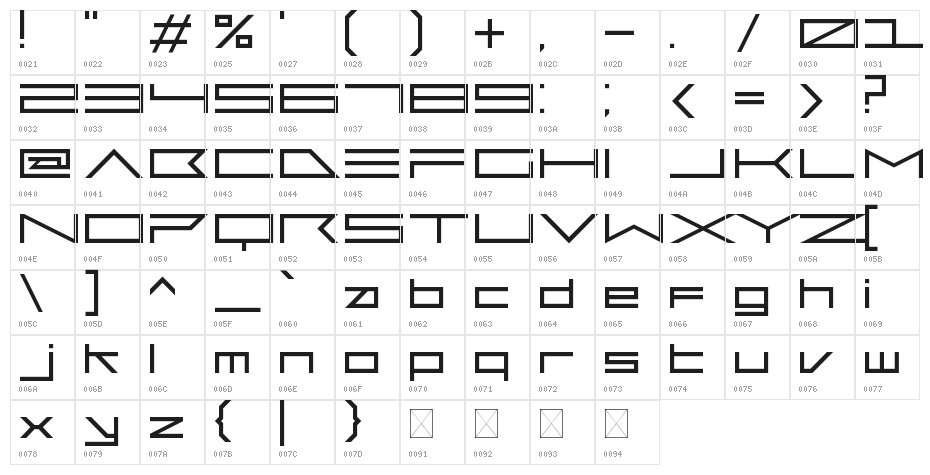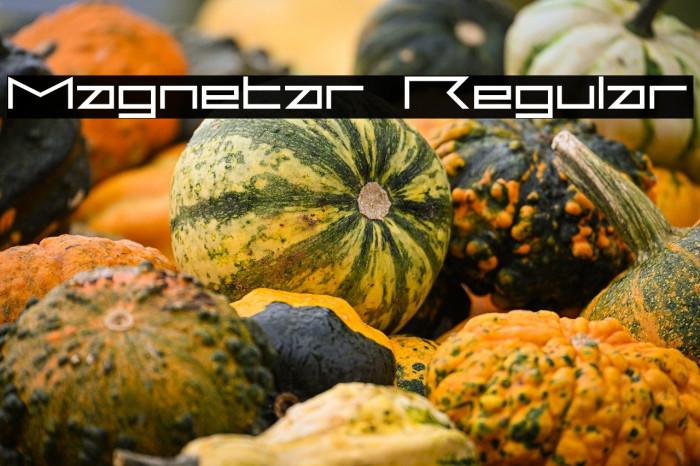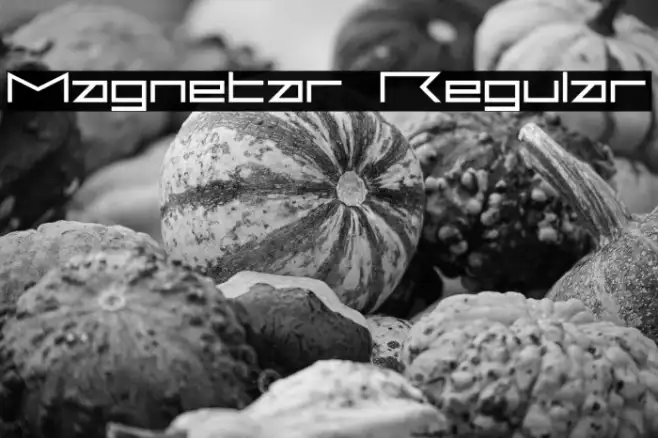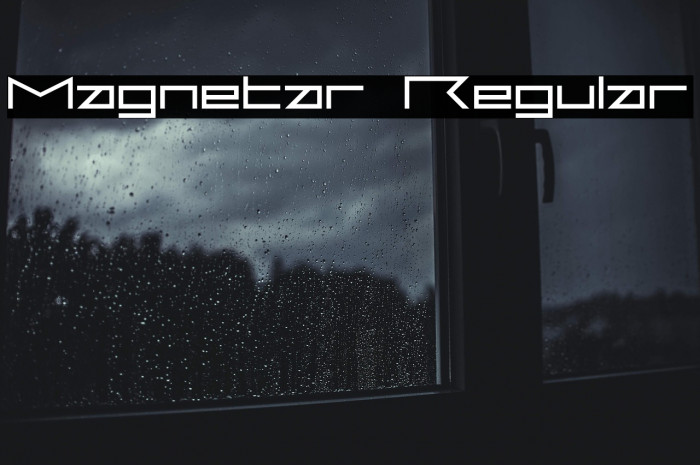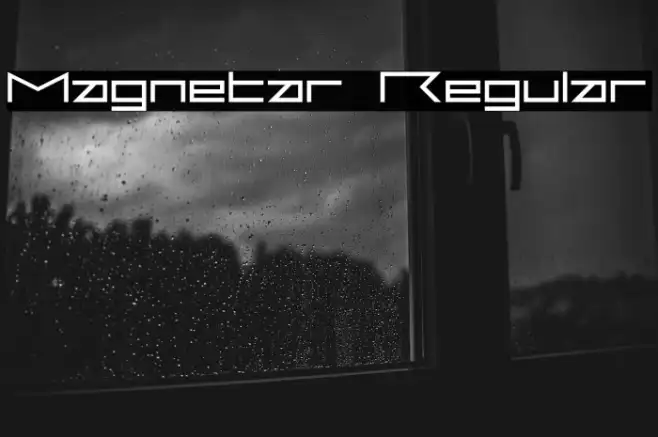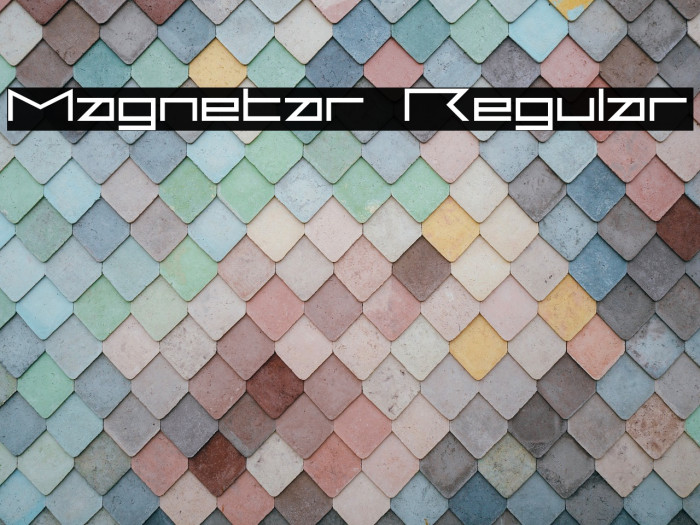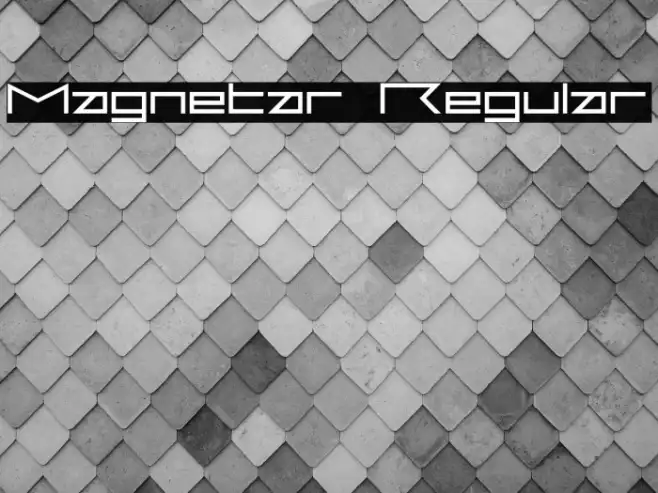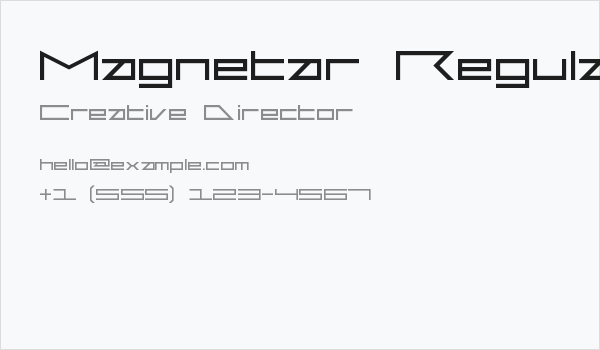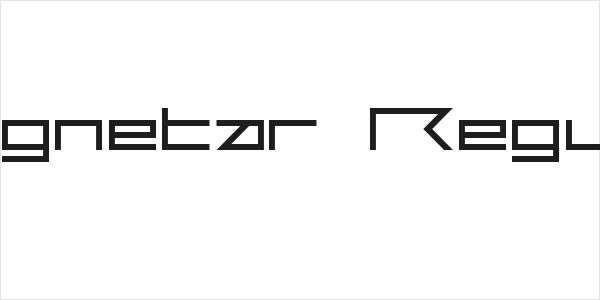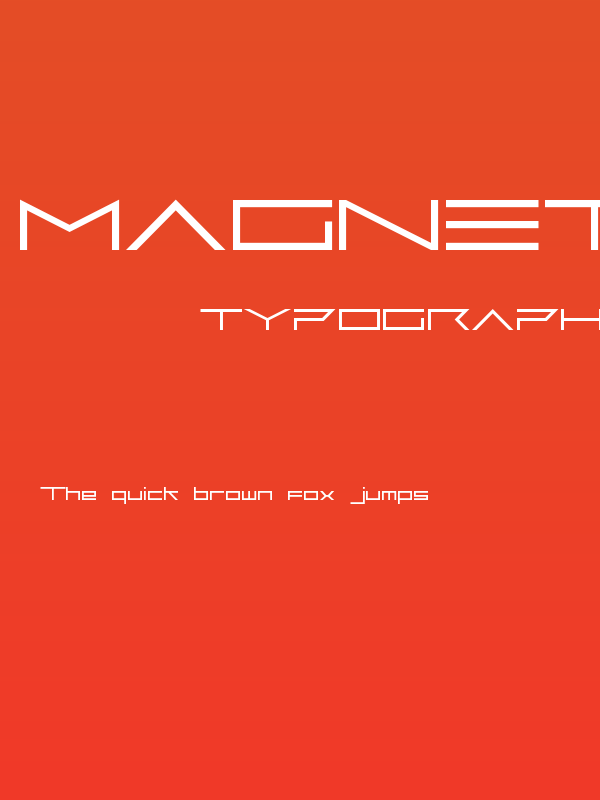
Magnetar Regular Font
Magnetar Regular Description
This font features a futuristic and geometric design with sharp angles and clean lines. The uppercase letters are distinct with a modern, tech-inspired aesthetic, while the lowercase letters maintain a consistent style that complements the uppercase. Numbers and special characters are designed to match the overall theme, providing a cohesive look. The font's structure is bold and striking, making it ideal for attention-grabbing designs. Its unique style is suitable for projects that require a modern and innovative appearance.
| Proposed Projects | Ideal for technology branding, sci-fi posters, video game titles, and modern logos. |